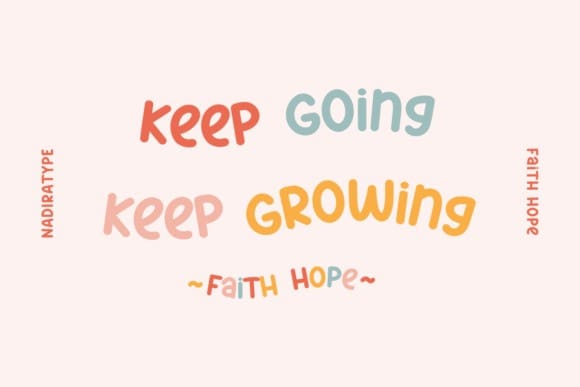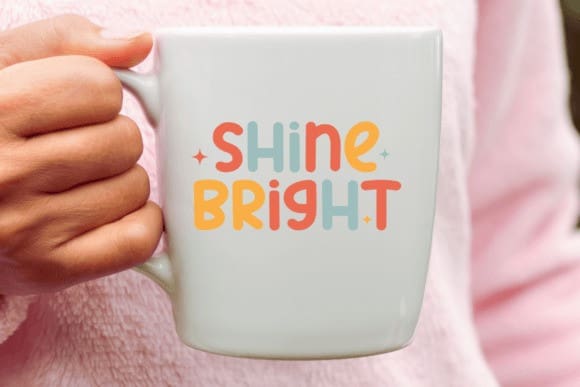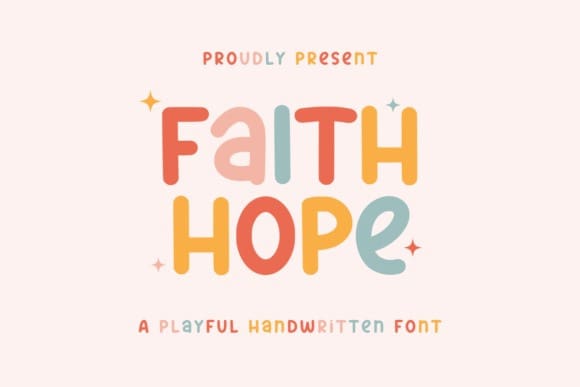
Faith Hope Font
Faith Hope Font – A Playful Handwritten Font, inspired by cute and fun typography. This font is very suitable for kids, this font is also suitable for your design to make it more attractive and adorable. This font is suitable for greeting cards, posters, t-shirts, mugs, quote logo types and many more.